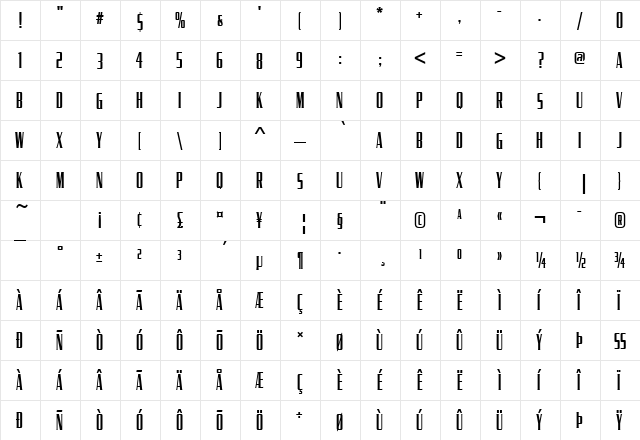
Serpentine Becker Compress Regular
Design Context for Serpentine Becker Compress Typeface
Serpentine Becker Compress takes a measured approach to typography — its balanced proportions and neutral character make it a reliable workhorse for both digital and print work.